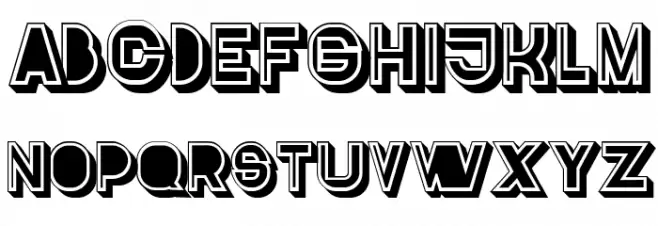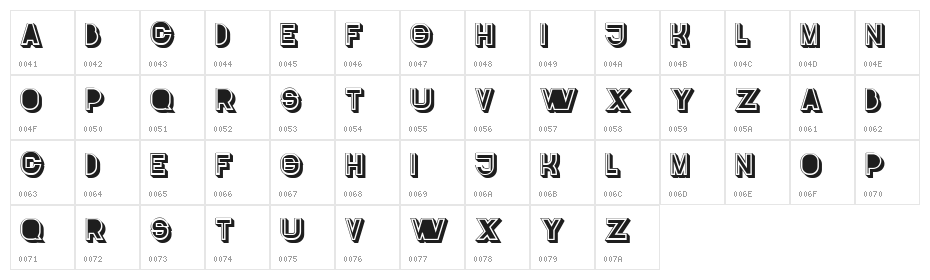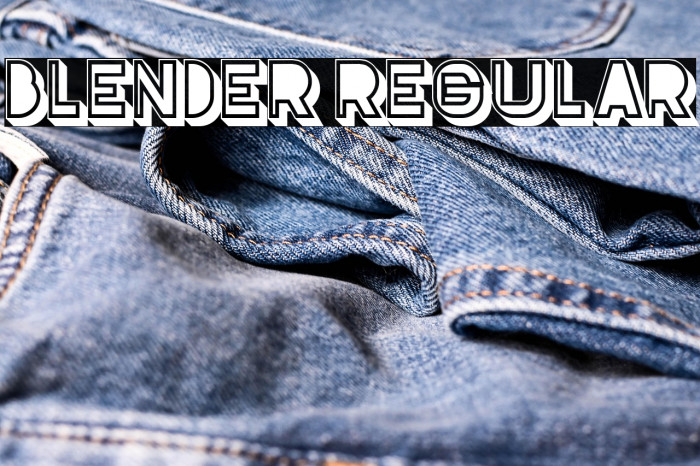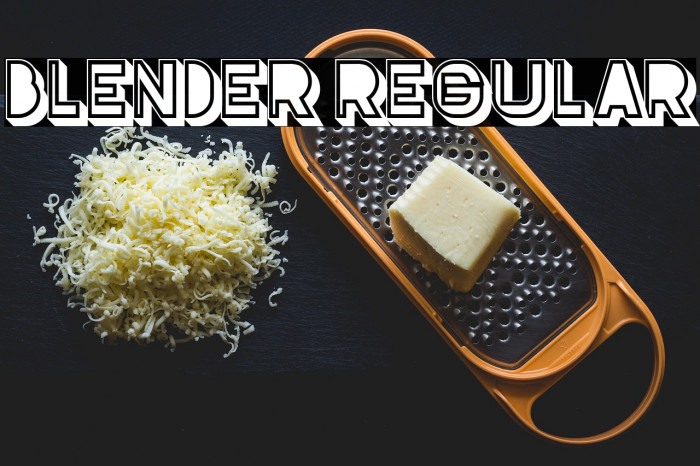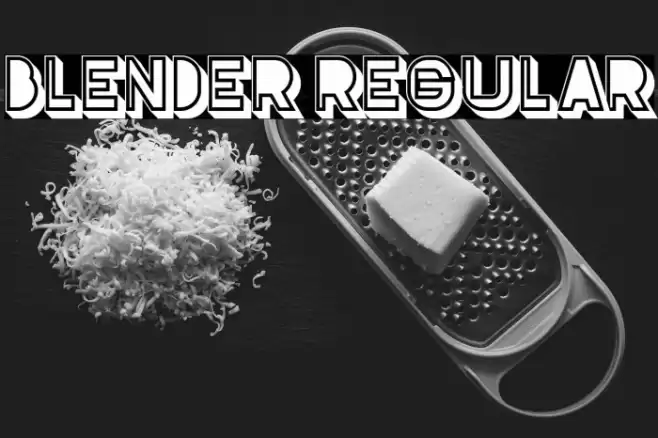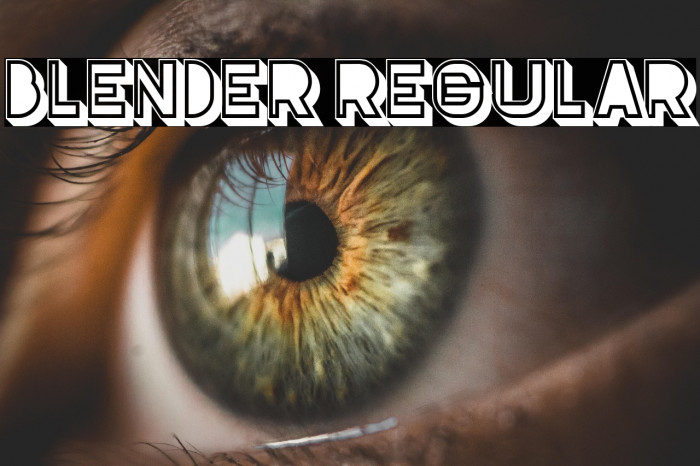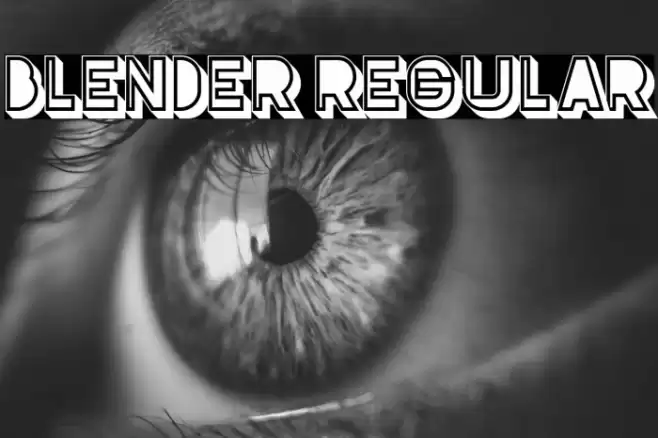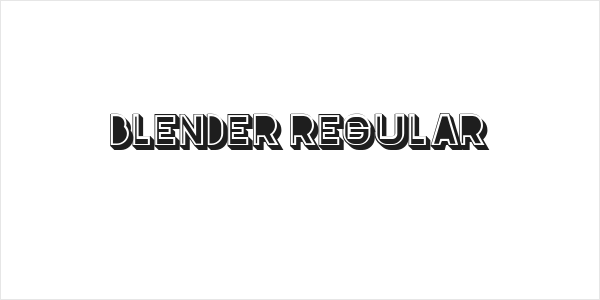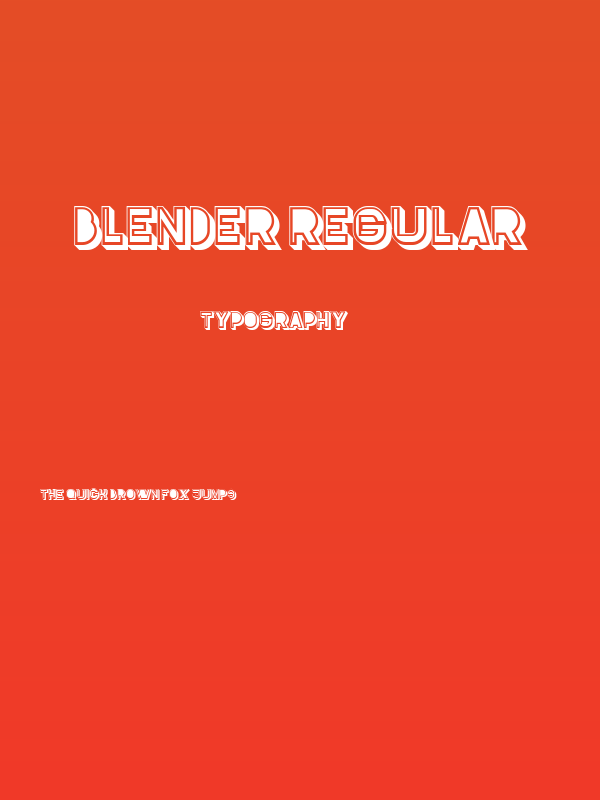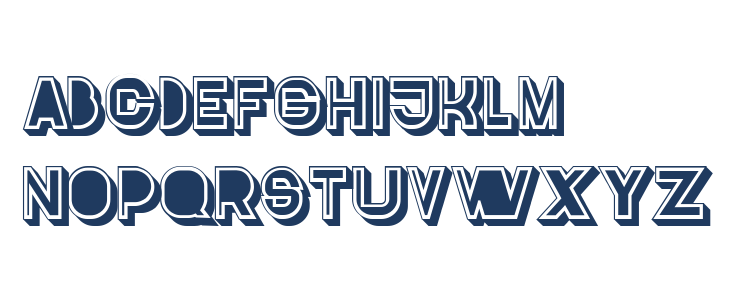
Blender Regular Font
Blender Regular Description
This font features a bold, geometric design with a strong three-dimensional effect. The letters are outlined with a thick black shadow, creating a striking contrast against the white inner space. The style is reminiscent of retro or vintage signage, with a modern twist. The characters have a uniform width, and the spacing between them is consistent, providing a clean and organized appearance. The font's unique style makes it ideal for eye-catching headlines or logos that require a bold statement.
| Proposed Projects | Perfect for retro-themed posters, eye-catching headlines, branding materials, and logo design. |